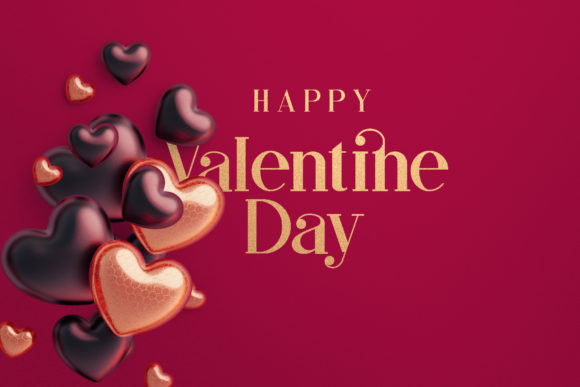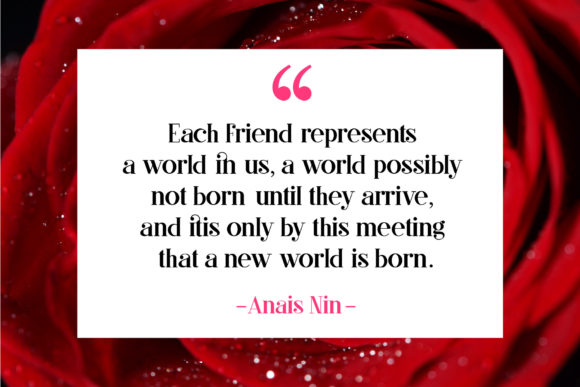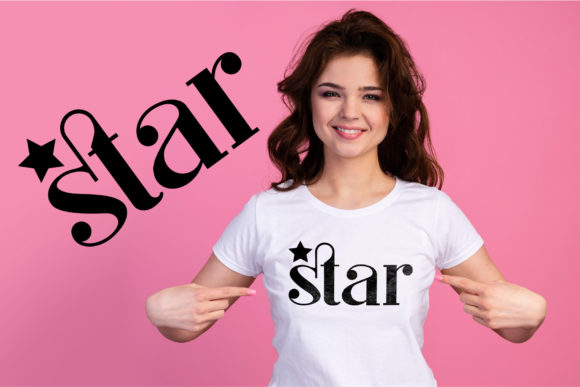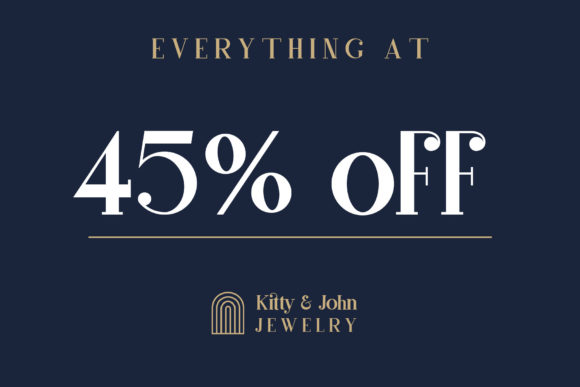
Introduction to Justin Font
Remember that moment when you’re working on a creative project, and you just can’t seem to find the perfect font to bring your vision to life? You’ve spent hours browsing through various design resources, only to end up with a mediocre choice that just doesn’t quite cut it. Well, say goodbye to those sleepless nights, because we’ve got the solution for you – the Justin Font.
This elegant serif font is designed to be modern, easy to read, and versatile, making it the perfect addition to any design project. Whether you’re working on a magazine, publication, wedding card, or business card, the Justin Font is sure to make a statement. And the best part? It’s available for free download, so you can experiment with it to your heart’s content without breaking the bank.
Key Features of Justin Font
- High-quality design: Justin Font is designed with precision and attention to detail, making it perfect for creative projects that require a professional touch.
- Transparent background: This font features a transparent background, allowing you to easily overlay it on images or other design elements.
- High-resolution design: Justin Font is designed at a high resolution, making it perfect for use in large-scale designs, such as billboards or signage.
- Unique characteristics: This font features a unique blend of modern and classic design elements, making it perfect for designers looking to add a touch of sophistication to their creative projects.
Honest Review: Justin Font
As a designer, I’m always on the lookout for high-quality fonts to elevate my creative projects. Justin Font is one such font that I’ve had the chance to work with, and I must say, it’s a gem. Here’s my honest review:
- ✨ High-quality design: Justin Font boasts crisp lines, precise typography, and a clean aesthetic that makes it perfect for a wide range of creative projects.
- ✨ Transparent background: The font’s transparent background makes it easy to overlay text on images or use it with complex design compositions.
- ⚠️ Limited character set: While the font is beautiful, it’s limited to a standard character set, which might not be suitable for languages that require extended character sets.
- ⚠️ Not suitable for body text: Due to its high contrast and intricate design, Justin Font is best used for headings and titles rather than body text.
Overall, I’m impressed with Justin Font’s quality and versatility. It’s a valuable design resource that can help elevate your creative projects. However, be aware of its limitations, and use it judiciously to get the most out of it.
Justin Font: A Versatile Design Resource
The Justin Font is a high-quality, free download that offers a range of creative possibilities for designers. This font is ideal for use in a variety of applications, from graphic design to digital art.
Tips for Getting the Most Out of Justin Font
To get the most out of Justin Font, try experimenting with different font sizes, colors, and combinations to create unique and eye-catching designs. You can also use the font in conjunction with other design elements, such as images and graphics, to create complex and engaging designs.
Common Use Cases for Justin Font
Justin Font is commonly used in a variety of creative projects, including graphic design, digital art, and typography-based artwork. It’s also a great choice for use in presentations, documents, and social media graphics due to its high-quality and transparent background.
Justin Font is a free download, but it’s not editable. However, you can use font editing software to create custom variations or modify the font’s characteristics, such as font size, color, and style. Keep in mind that modifying the font may affect its quality and compatibility.
Is Justin Font suitable for use with a transparent background?
Yes, Justin Font is designed to work well with transparent backgrounds. Its transparent background feature allows you to easily layer it over images or other design elements, creating a seamless and visually appealing effect.